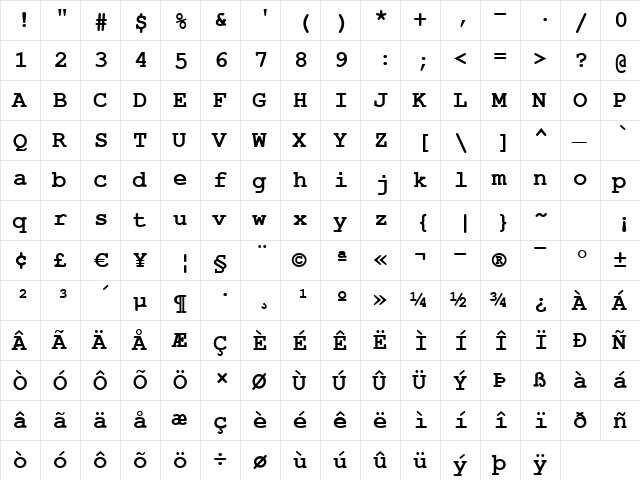
Courier-PS Bold Font Preview
Design Context for Courier-PS Typeface
Courier-PS uses fixed-width spacing throughout, giving it the structured, systematic character associated with coding environments and technical documentation. The heavy weight commands attention and anchors typographic hierarchies.
Pro Tip: Use Courier-PS with slightly increased line-height for extended reading — fixed-width spacing can feel dense in longer passages without extra breathing room.